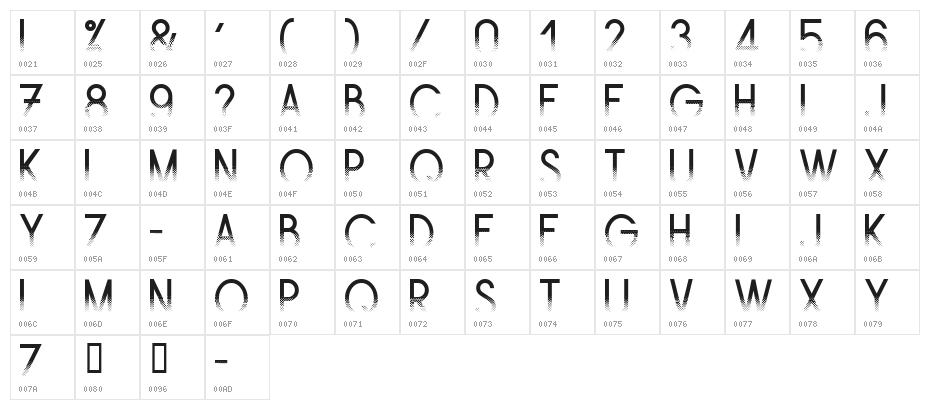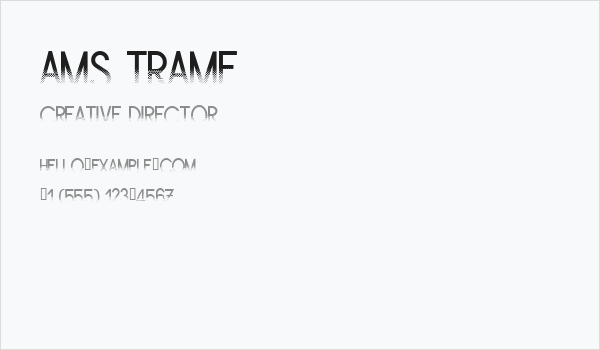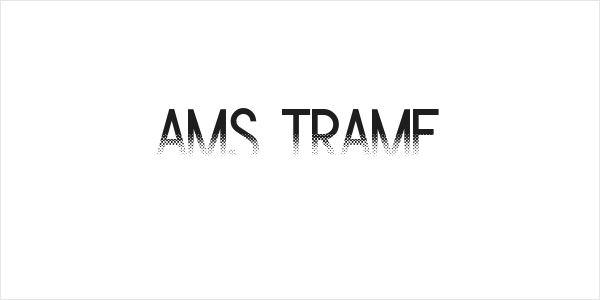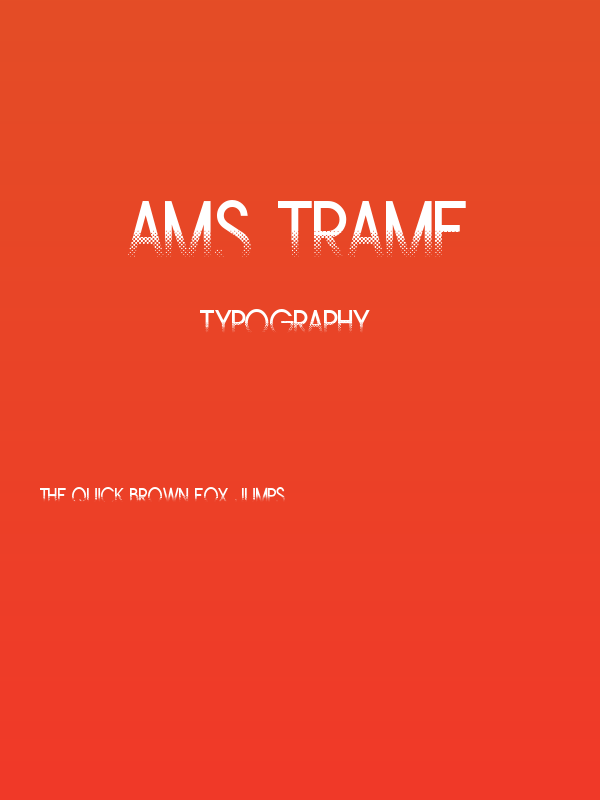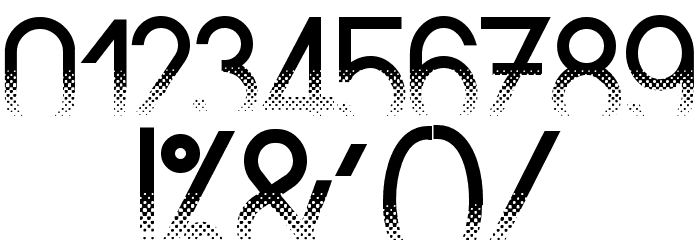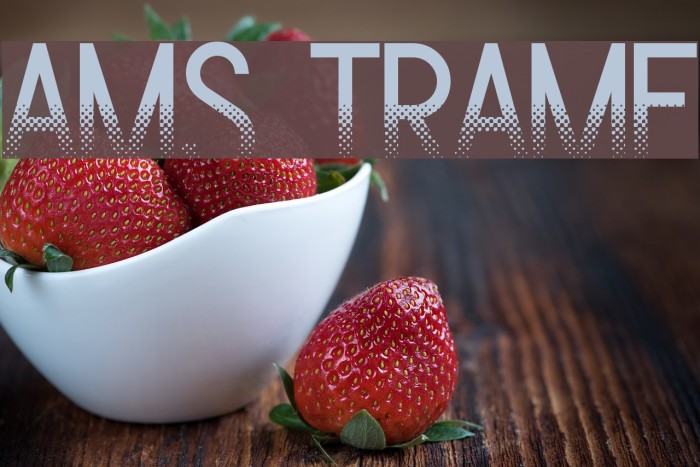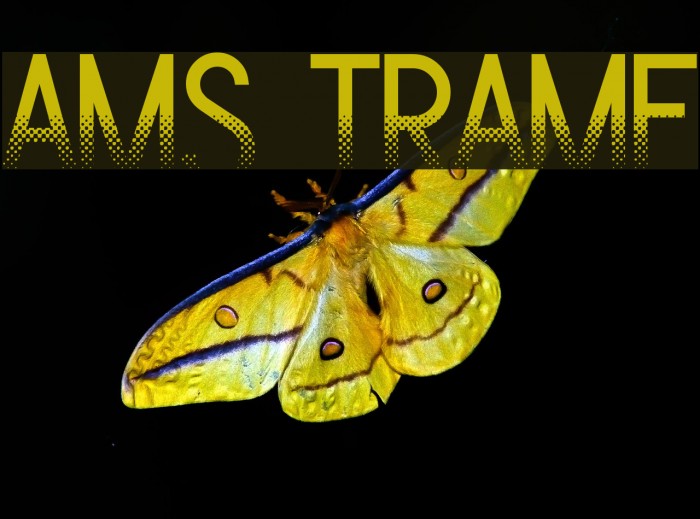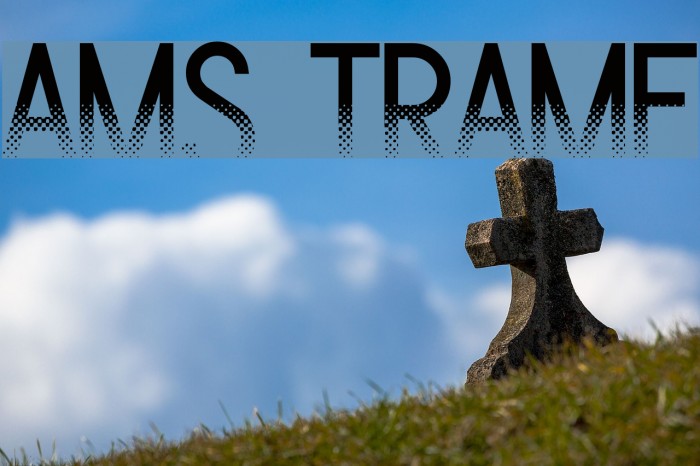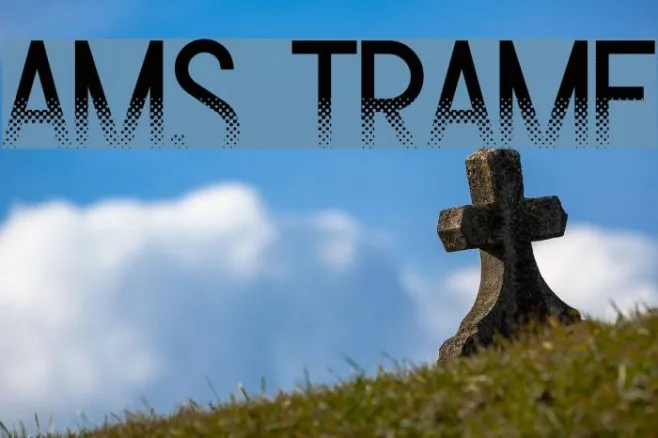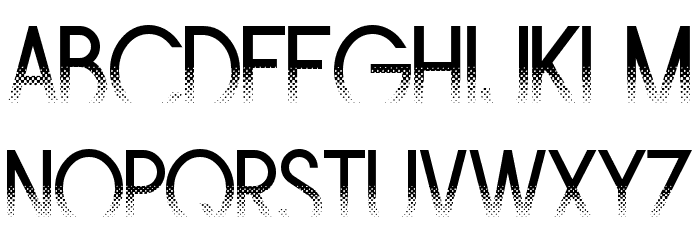
Ams Trame Font
Ams Trame Description
This font features a unique design with a modern twist, characterized by its gradient effect that transitions from solid black at the top to a dotted pattern towards the bottom. The uppercase and lowercase letters maintain a consistent style, with clean lines and a geometric structure. The numbers and special characters follow the same design principle, ensuring uniformity across all glyphs. This font's distinctive appearance makes it ideal for creative and eye-catching designs.